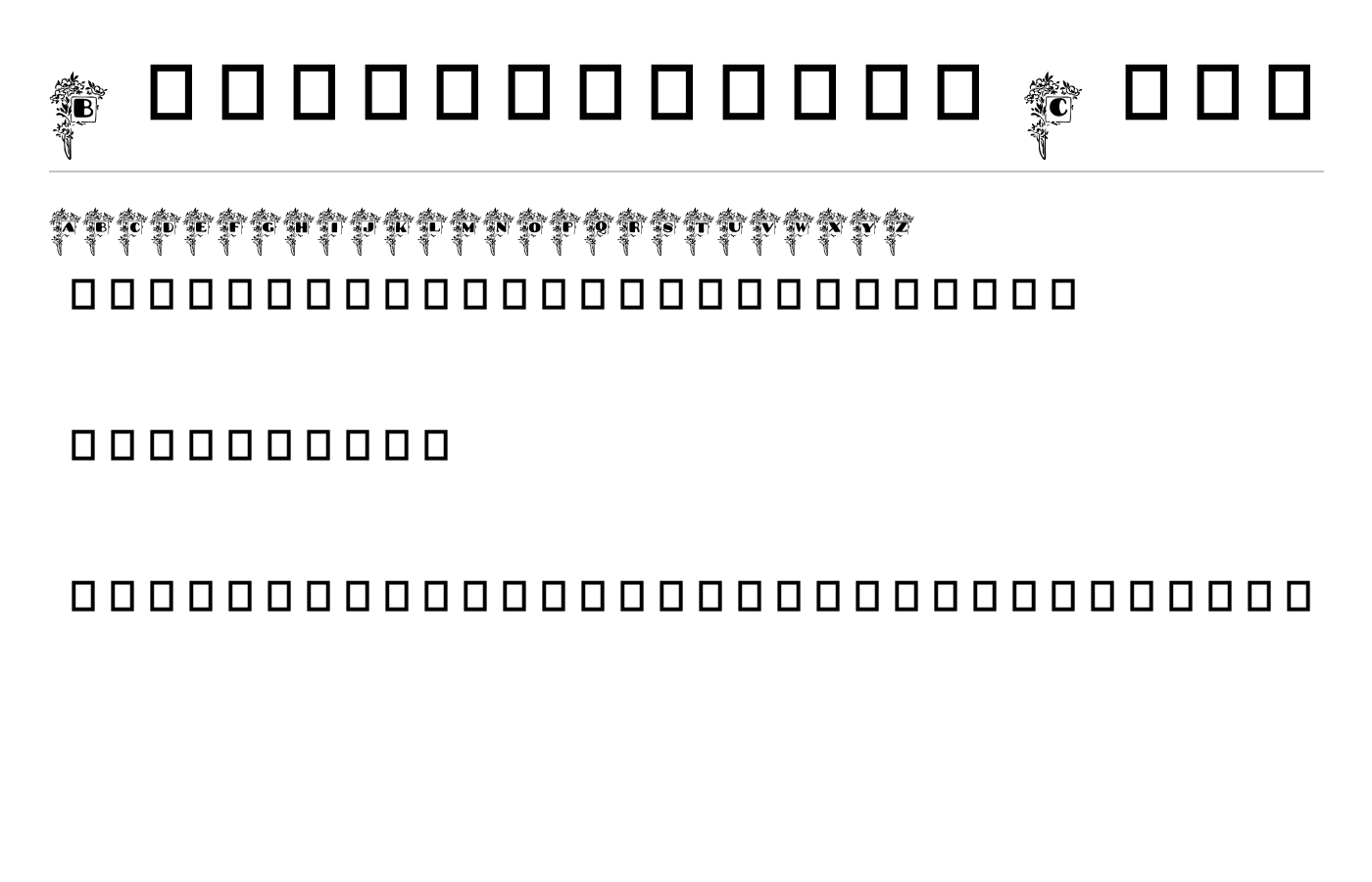
Blumenstrauss Caps is a decorative serif font characterized by its all-uppercase design and delicate floral embellishments integrated into each letter. It conveys a vintage, elegant feel with its finely detailed serif strokes and ornamental style, making it perfect for luxury branding, wedding invitations, and decorative headlines where a touch of classic sophistication is desired. This font works best when used sparingly in display settings to highlight its unique, artistic charm.
Blumenstrauss Caps Font
About Blumenstrauss Caps Font